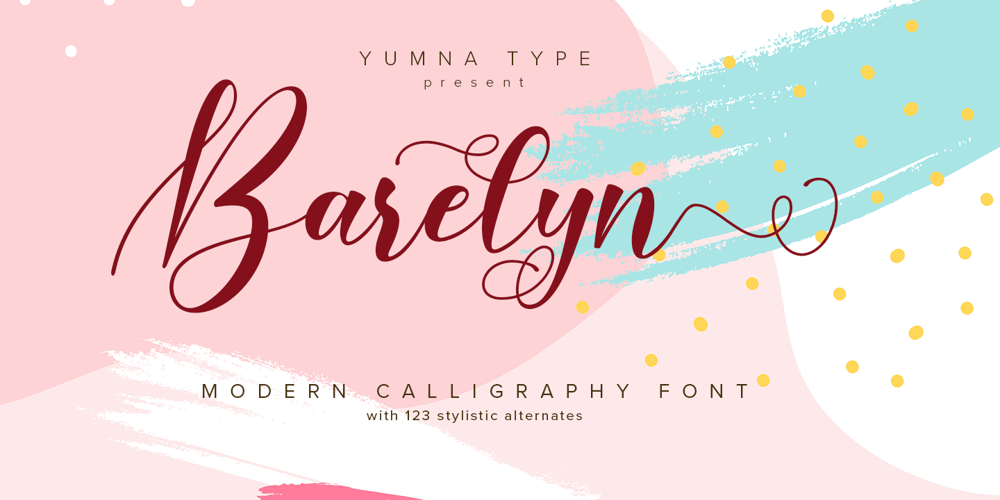
Barelyn
Barelyn font
Barelyn Font Family was designed by Ditya Dewi Anandita and published by Yumna Type. Barelyn contains 1 styles and family package options. Barelyn is a beautiful and modern script.It brings a beautiful and modern typeface that best used for weddings, branding, logotype, and quotes.:Featured : Ligatures Beautiful Alternates + Swashes PUA Encoded Multilingual Support Numerals and Punctuation Beginning Swash and Ending Swashes (a-z)